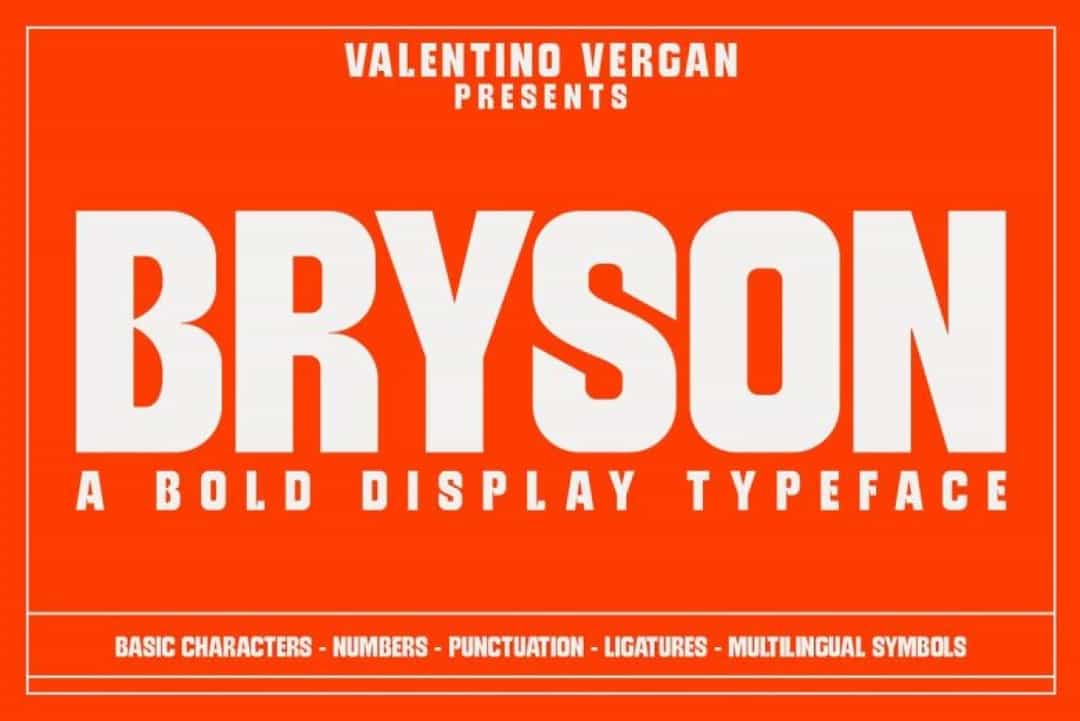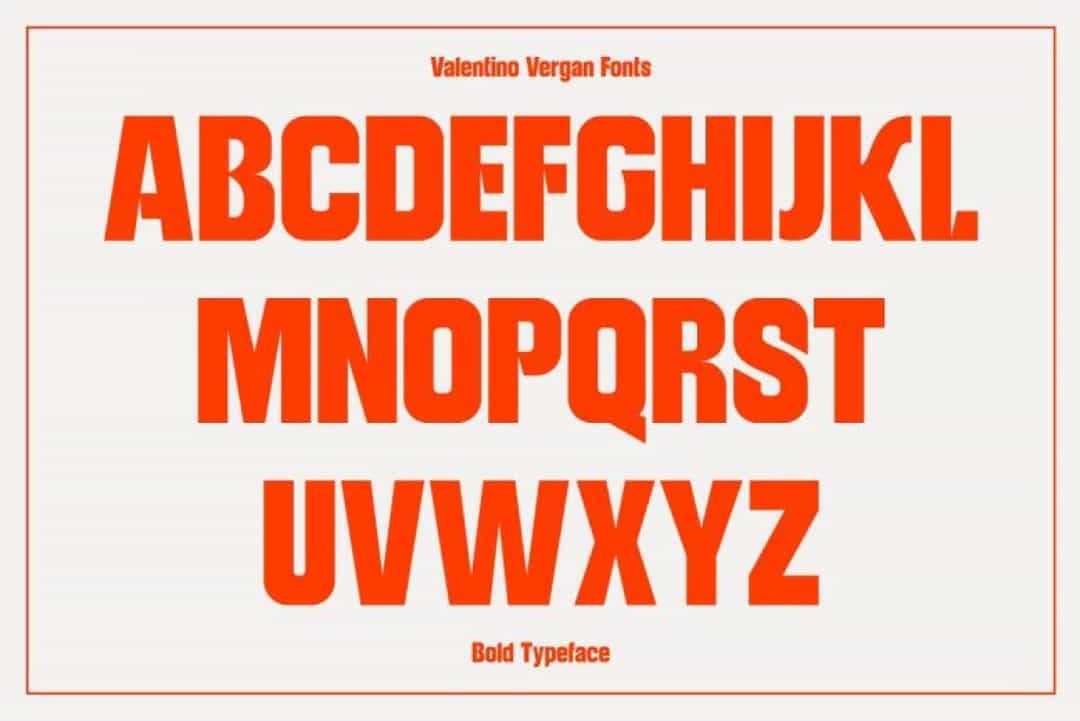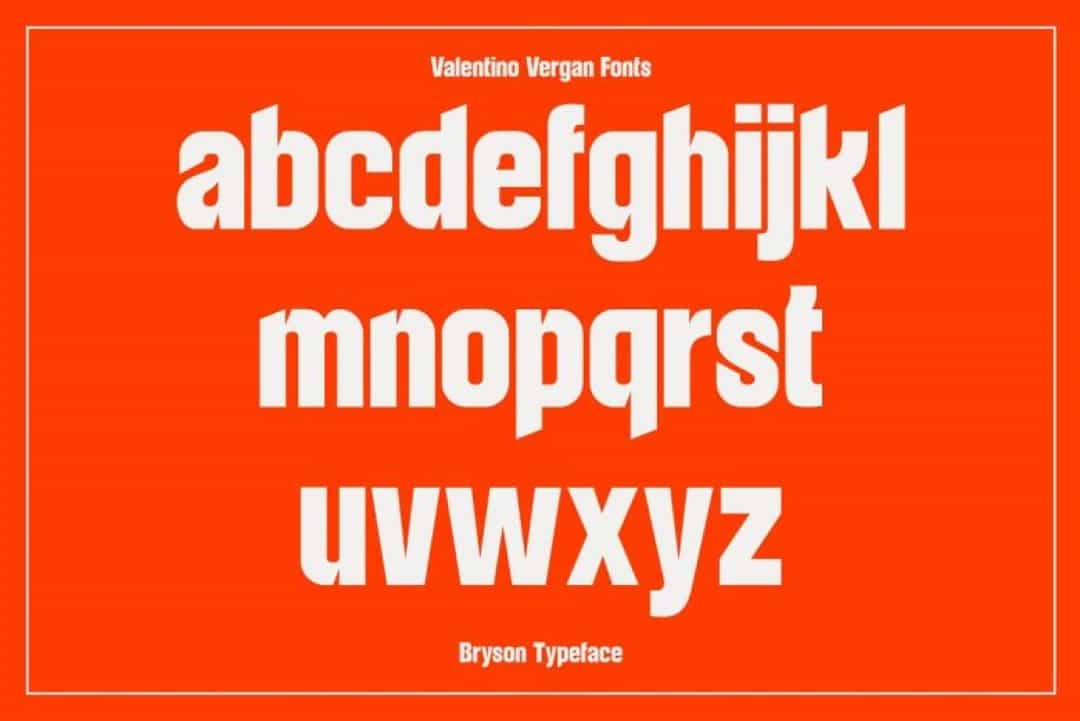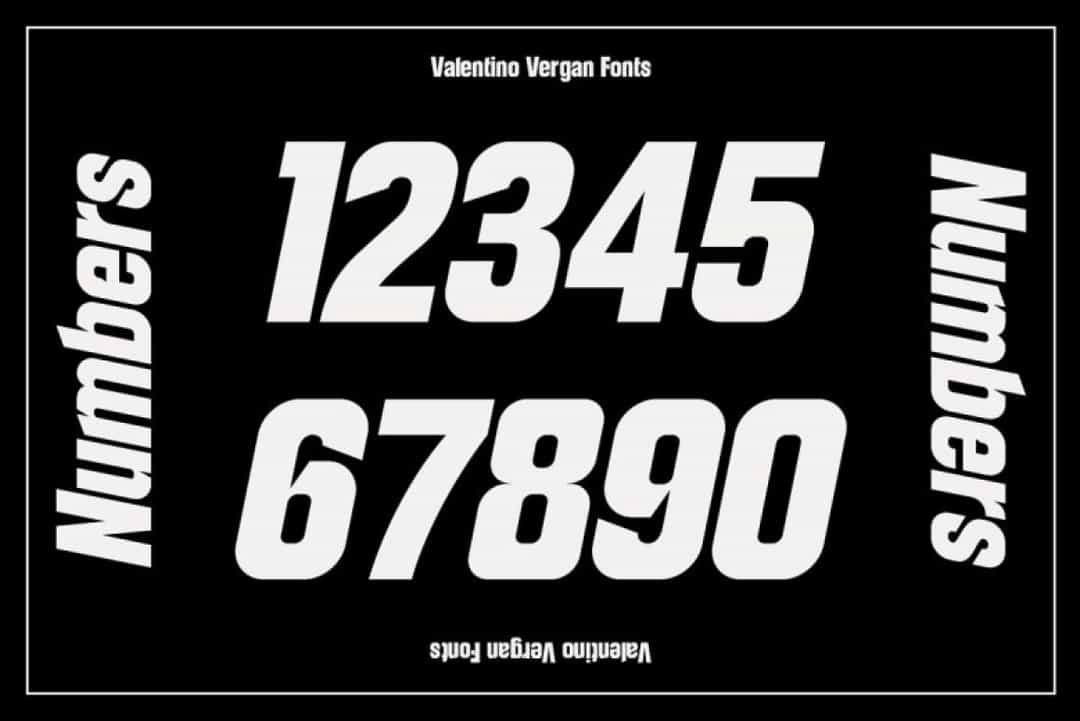
Bryson, our striking display the ligature typeface, stands out with its simple yet distinctive forms and sharp kerning that makes retro designs come to life. Bryson can be used for web and print projects – making it the ideal typeface to evoke contemporary designs! If you need something striking and modern for your next project, Bryson might just be your solution!